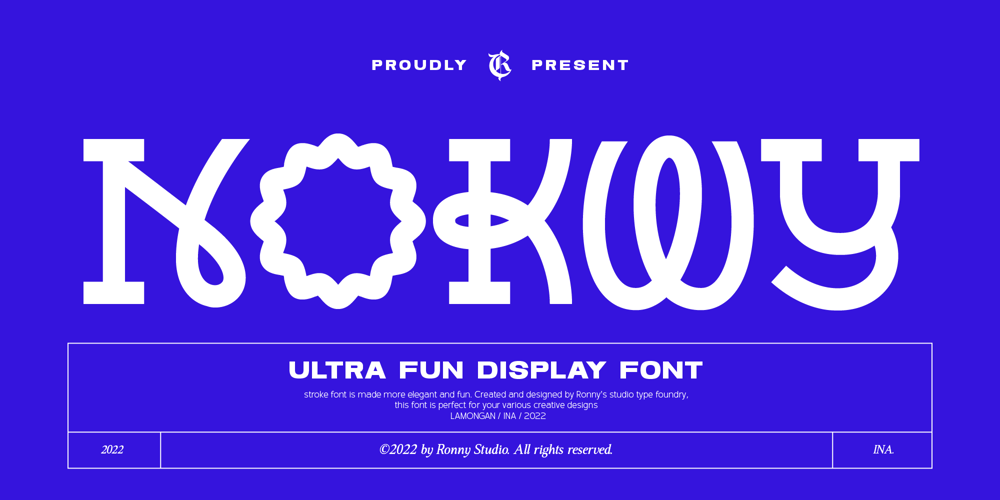
Nokwy Font Family was designed by Rony Rizki Jaya and published by Ronny Studio. Nokwy contains 1 styles and family package options. Nokwy is a unique display font perfect for contemporary display types and branding. This font has fonts that are attractive enough to attract readers and make them smile. This font looks very simple and pleasing to the eye.Features :- Lowercase & Uppercase- numbers and punctuation- multilingual- Ligature- alternates- PUA encodedPlease contact us if you have any questions. Enjoy Crafting and thanks for supporting us! :)Thank you